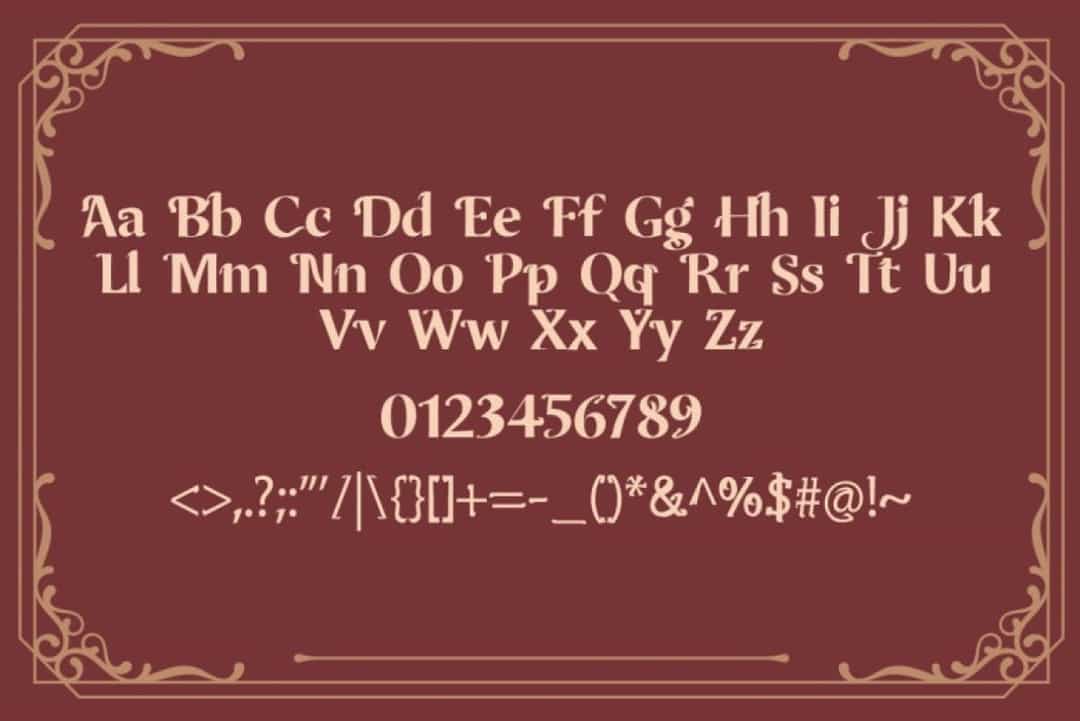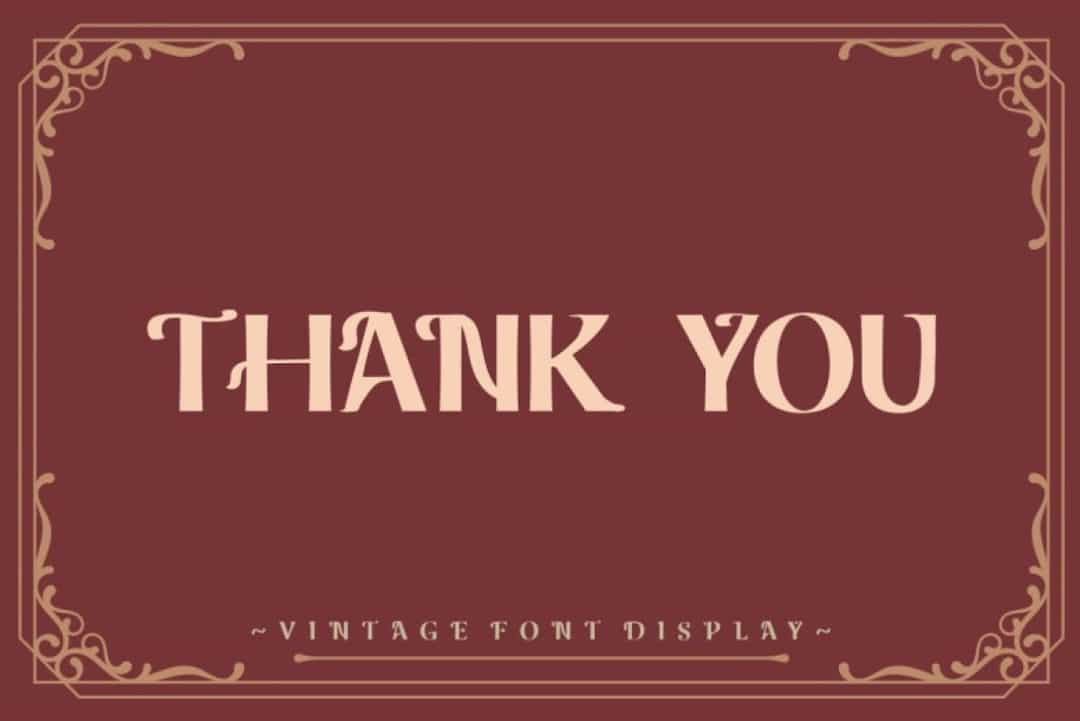
Gubriel, an elegant modern and simple display serif font. Its style is sophisticated yet stunning, giving this font its modern elegance – ideal for T-shirts, posters, book covers, cards or merchandise!